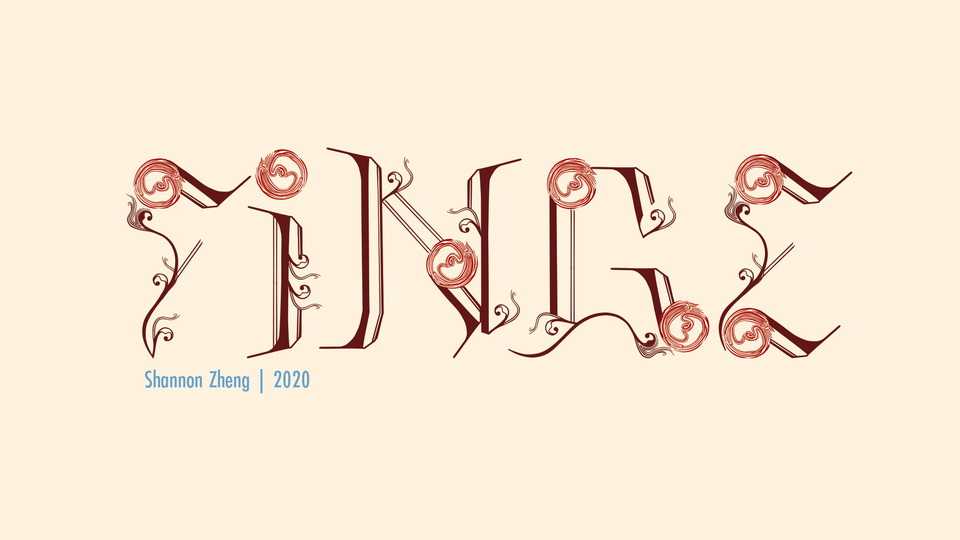
Download Finge font, a decorative modular display typeface inspired by human fingerprints and Art Nouveau scroll motifs. Finge font looks great for ornate typography and other artwork.
Designer: Shannon Zheng